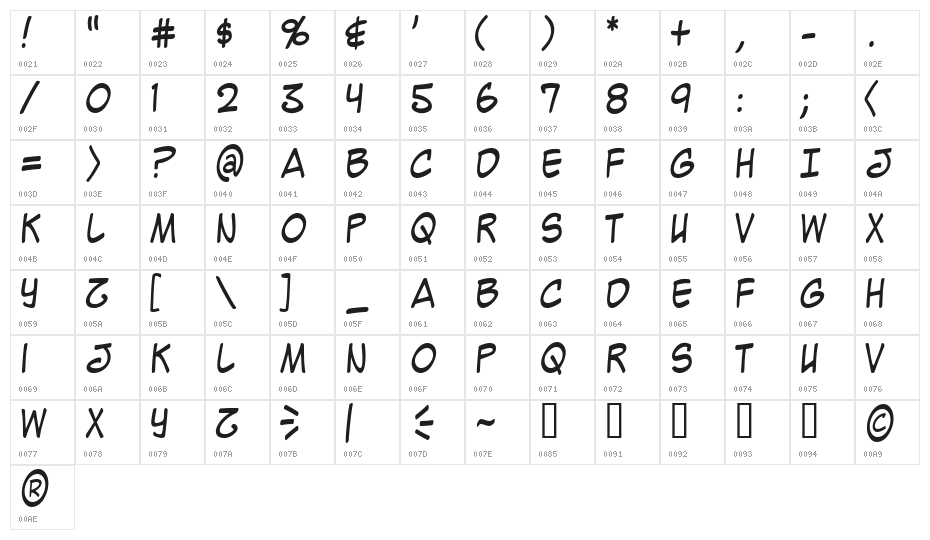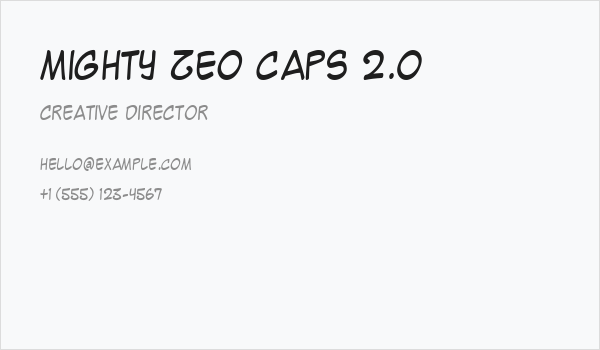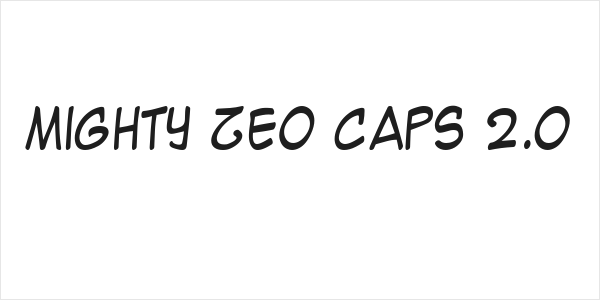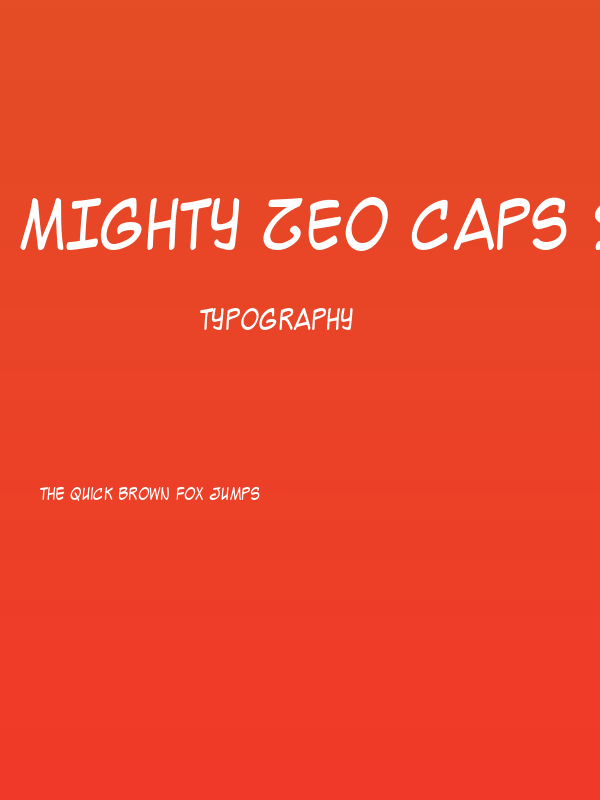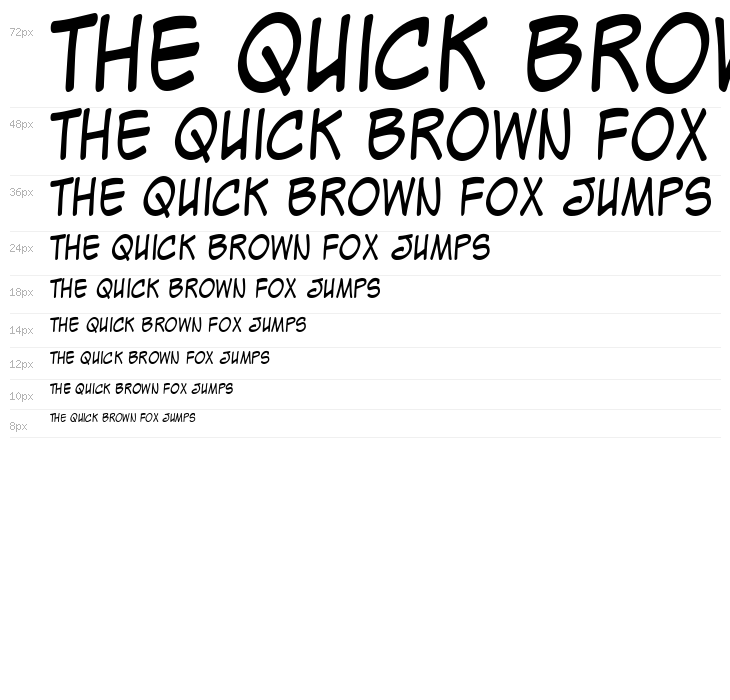
Mighty Zeo Caps 2.0 Font
Mighty Zeo Caps 2.0 Description
This font features a playful and dynamic style, characterized by its smooth, rounded edges and slightly slanted orientation. The letters have a handwritten appearance, giving them a casual and friendly vibe. The strokes are consistent in thickness, providing a uniform look across all characters. The numerals and special characters maintain the same playful quality, ensuring a cohesive design throughout. This font is versatile, suitable for projects that require a touch of personality and approachability.
| Proposed Projects | Ideal for children's books, greeting cards, playful branding, and casual invitations. |